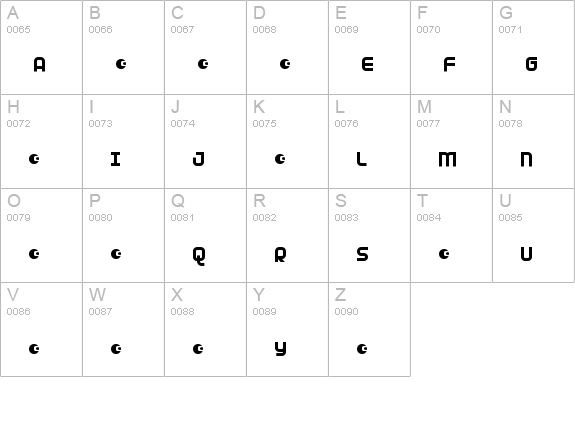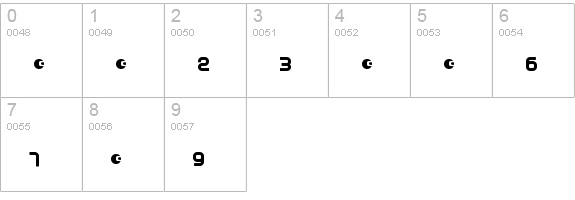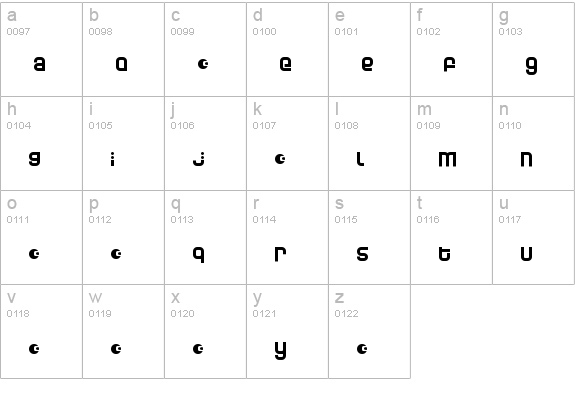
Dunebug Alternates font is a whimsical and playful typeface that brings a touch of fun to any design project. With its quirky letterforms and unique alternate characters, this font is perfect for adding a creative twist to your work. Whether you're designing a poster, logo, or social media graphic, Dunebug Alternates will help your text stand out and make a statement. What's even better is that Dunebug Alternates font is completely free to download at FontsMarket.com. You can easily access this charming and versatile typeface without any cost, making it a fantastic choice for designers on a budget. Don't miss out on the opportunity to enhance your designs with the delightful Dunebug Alternates font today!